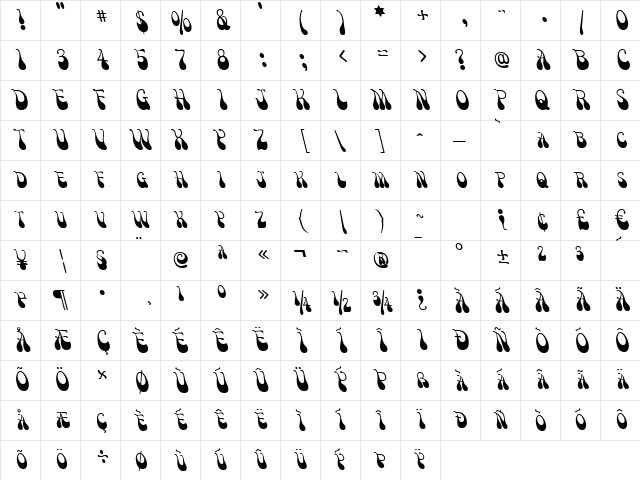
Victor Moscoso Regular
Design Context for Victor Moscoso
Victor Moscoso is a composed and adaptable typeface that performs quietly and consistently across a wide range of design contexts.